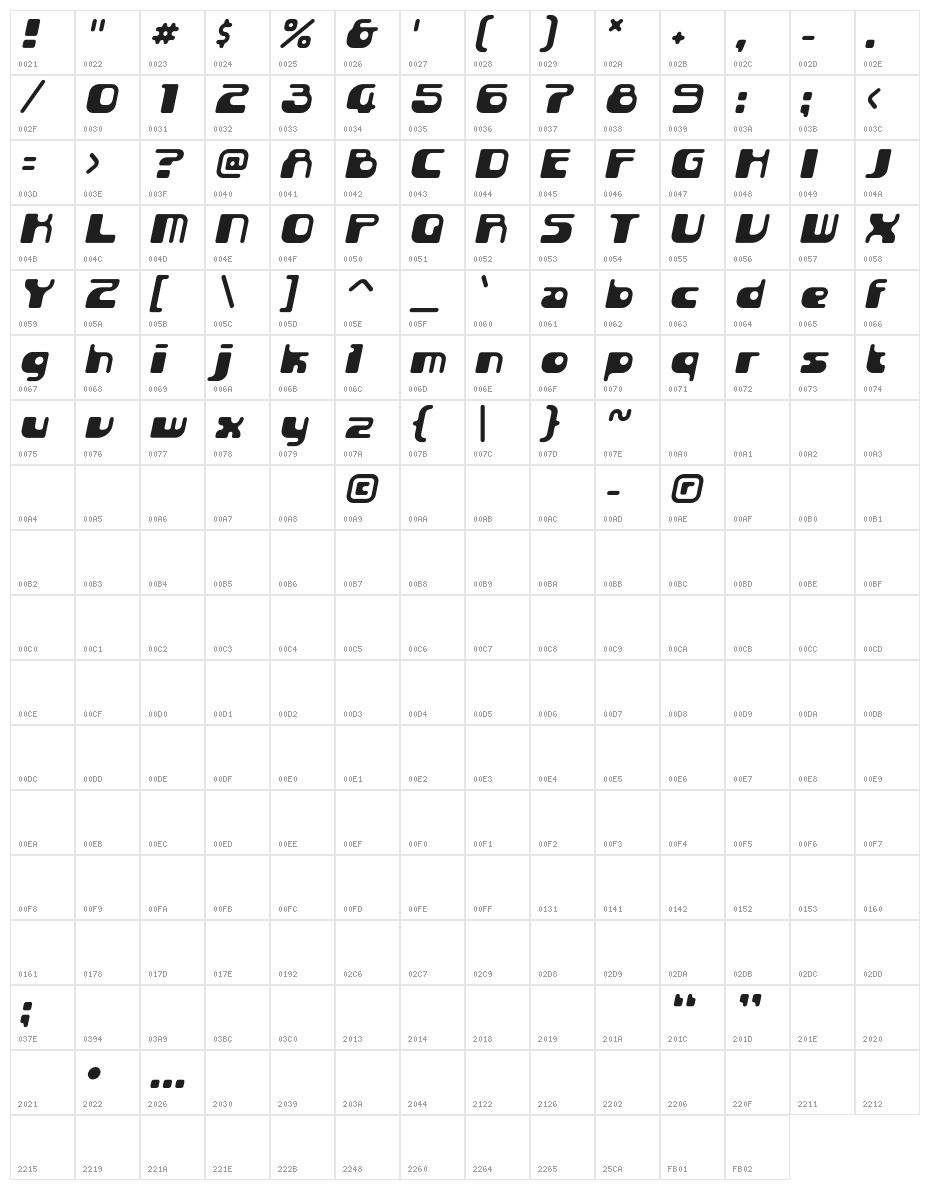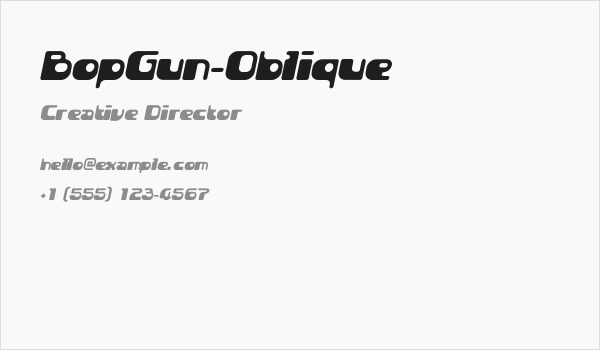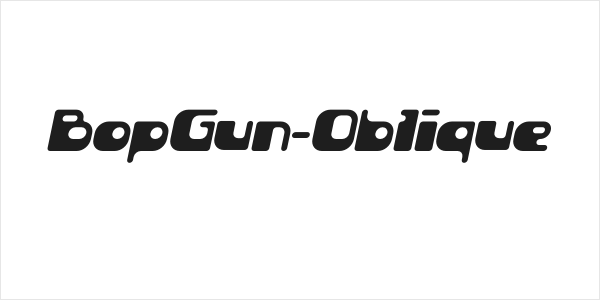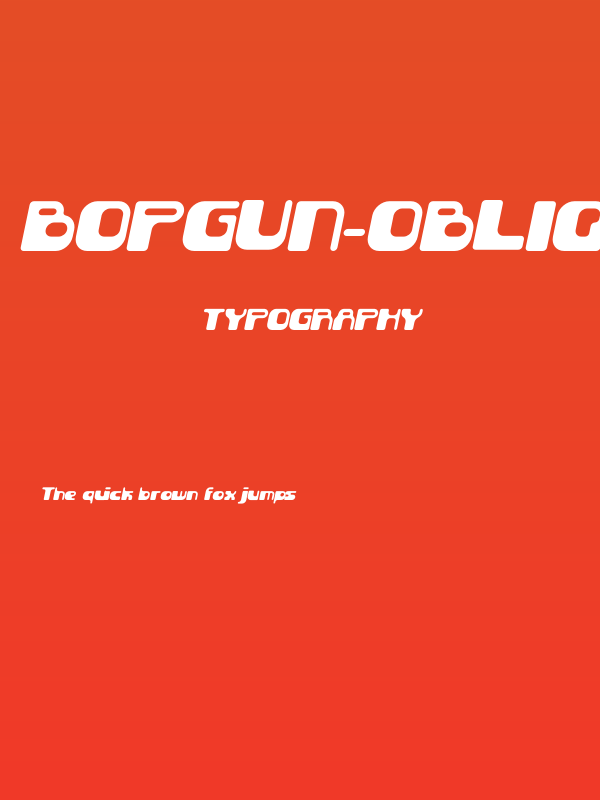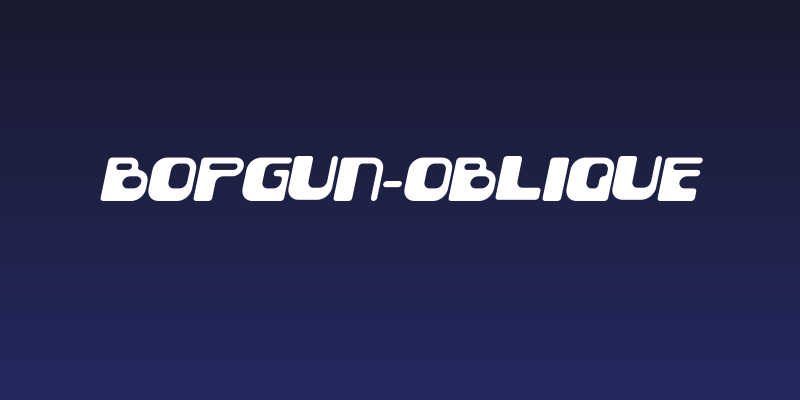
BopGun-Oblique Font
BopGun-Oblique Description
This font features a bold and dynamic style with a distinct oblique slant, giving it a sense of motion and energy. The characters are rounded and thick, creating a strong visual impact. The uppercase and lowercase letters maintain a consistent style, with smooth curves and a slightly futuristic appearance. The numbers and special characters are designed to match the overall aesthetic, ensuring uniformity across all text elements. This font's unique style makes it stand out, suitable for projects that require a modern and bold statement.
| Proposed Projects | Ideal for branding, posters, headlines, and any design that needs a modern, energetic touch. |